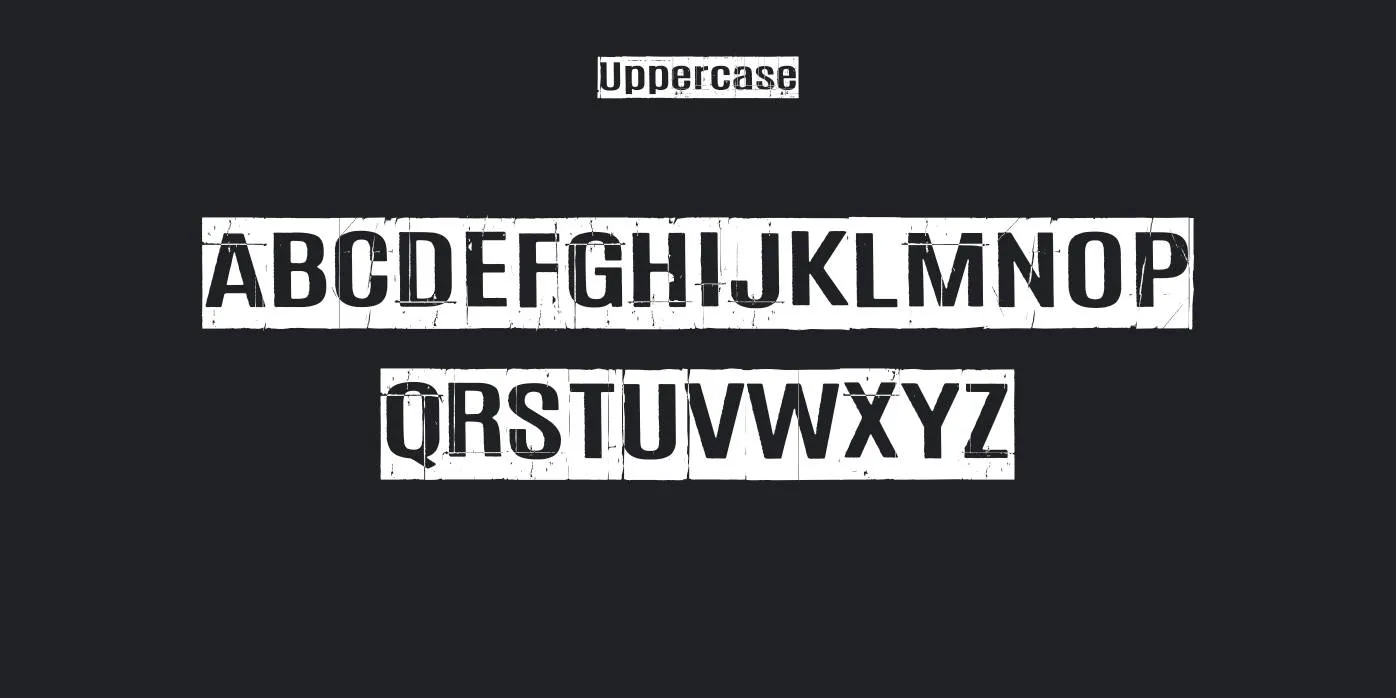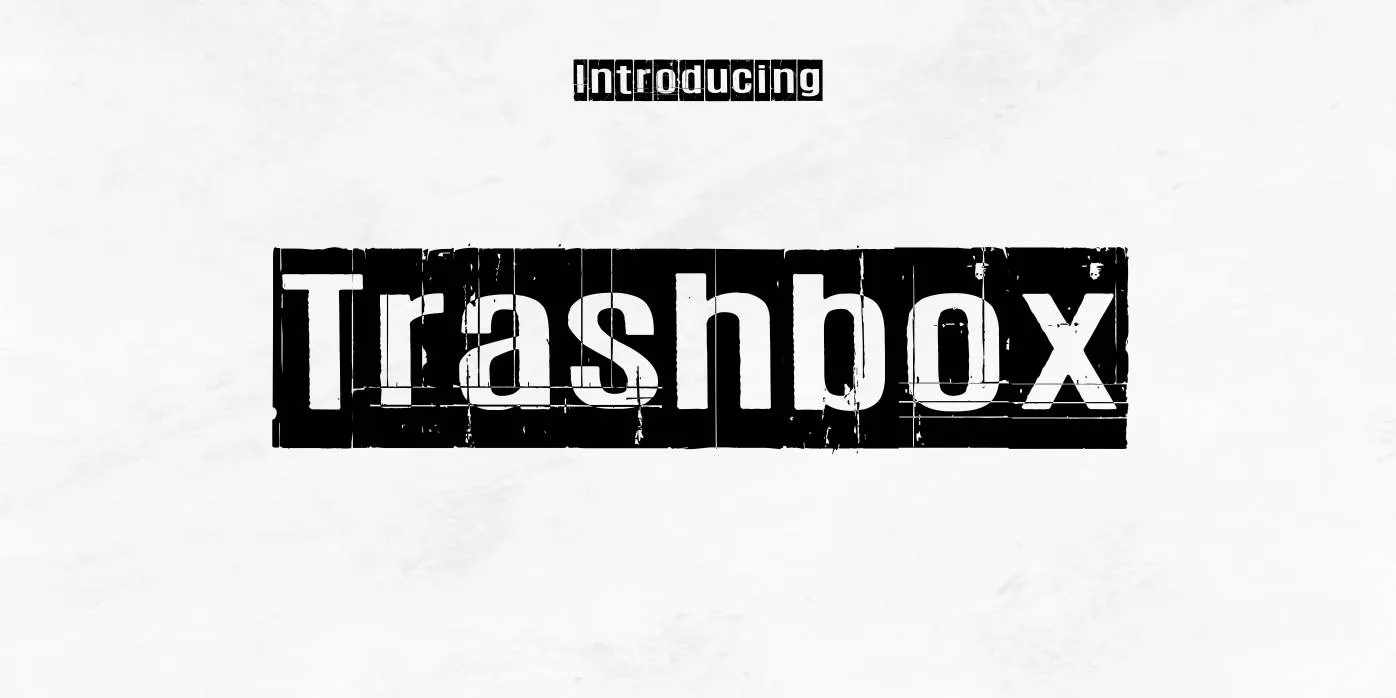
Trashbox Font
Junkohanhero is the designer of Trashboc Font. Trashbox font is the fancy texture. The characters of this texture are bold, simple, classic, and clear. This font is very easy to read and gives a very attractive look to the texture.
This best font is also good to make pairing with other typefaces. So, i recommend to combine it with quick cut font. This pair has some exceptional qualities. .